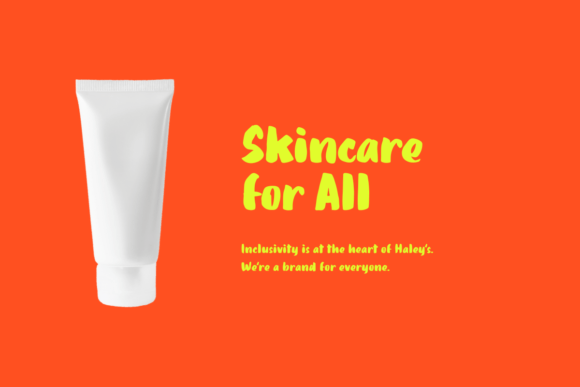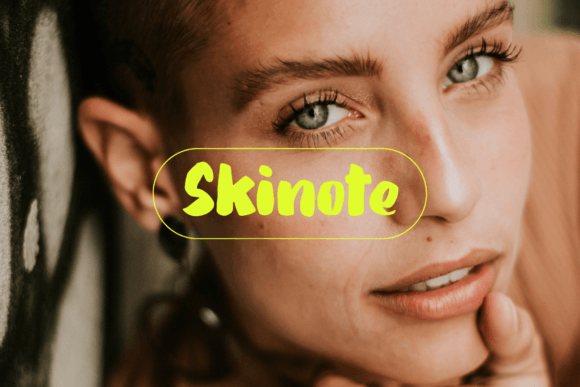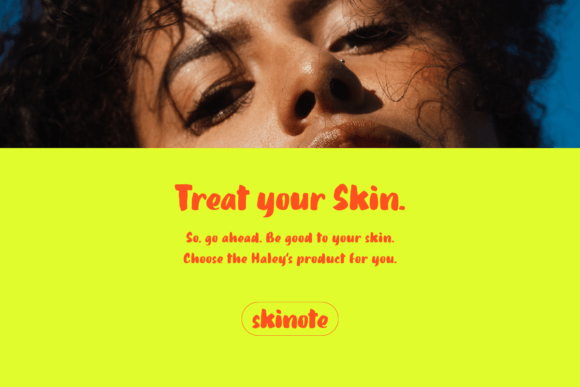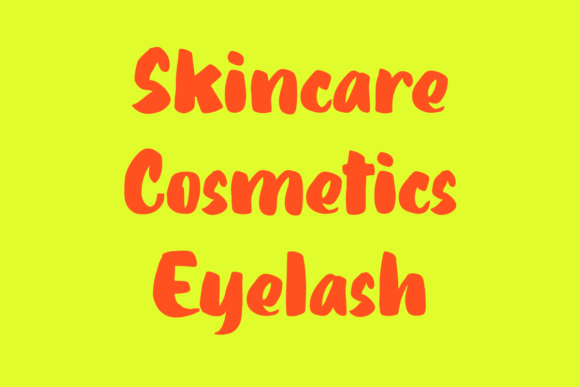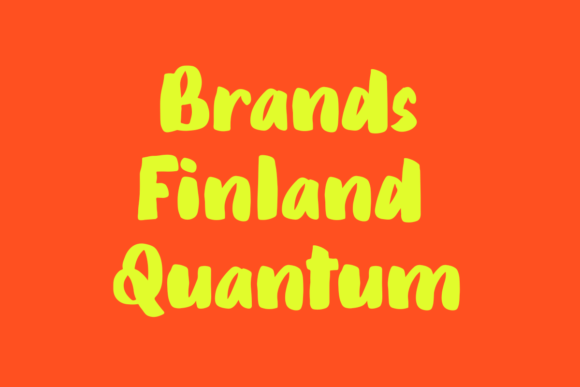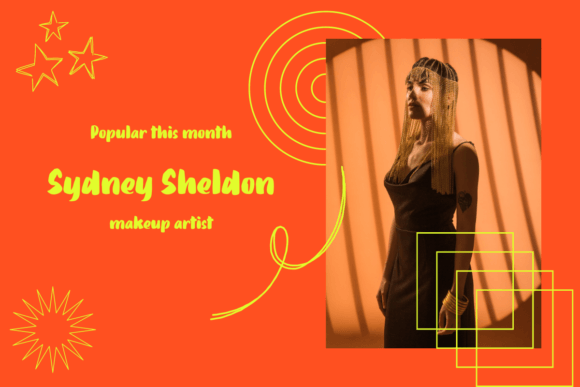
Introduction to Daily Routines Font
The “Daily Routines” Handwritten Display Font is a delightful and charismatic typeface that effortlessly captures the essence of casual elegance.
With its carefully crafted strokes and artful imperfections, this font exudes a sense of handmade authenticity that is both inviting and versatile Designed with meticulous attention to detail, “Daily Routines” showcases a harmonious blend of playful curves and well-balanced letterforms, making it a perfect choice for projects that seek to strike a harmonious balance between approachability and sophistication.